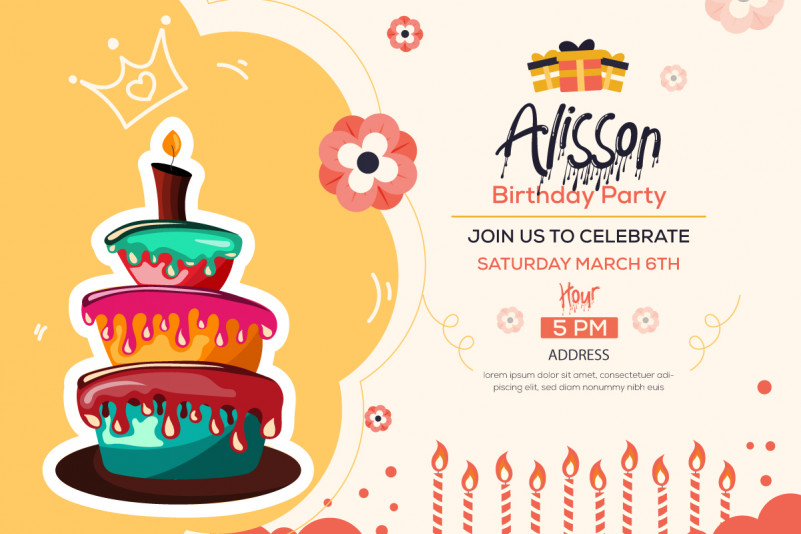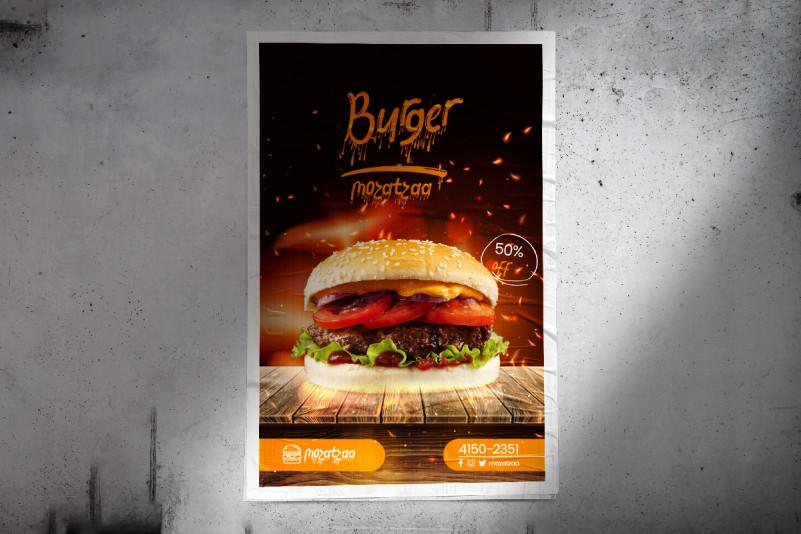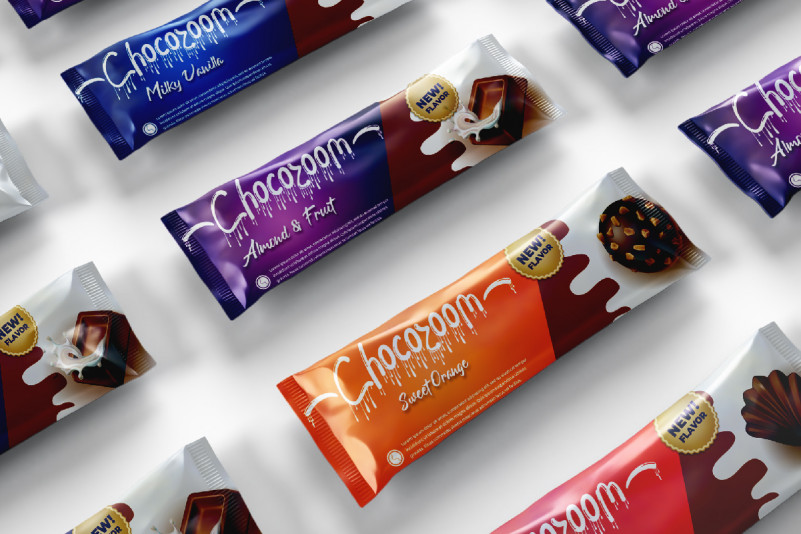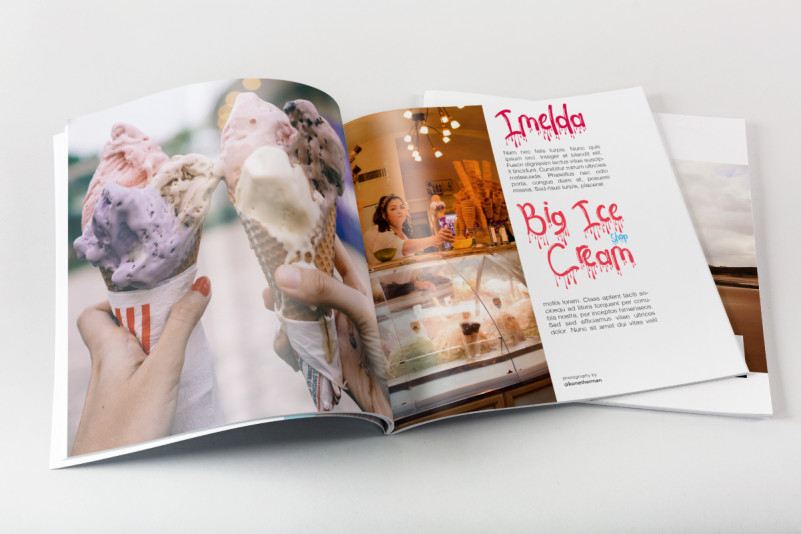
Melting words Font
Melting words Display Font
This font is remotely made by RaisProject team in Indonesia. Melting Words has two styles : Regular and Italic . The font was handcrafted for any your special projects including : brands, promotion, events, games, advertising, magazine, signage, invitation, stationery, social media posts, label, or and any projects that need unique style. The industries for this font is Comic, Events, Games, Magazine, Music, Movies, Cafe, Restaurant etc